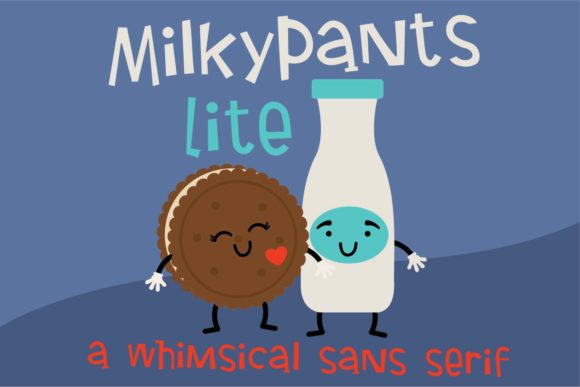
Welcome to the world of Milkypants Font, the most charming and playful sans serif font that will add a touch of enchantment to your creative projects. Designed by the talented team at Illustration Ink, Milkypants is not just a font; it's an experience that transports you to a world of magic and whimsy.
With its effortlessly readable characters and captivating style, Milkypants is the perfect choice for a multitude of DIY projects, from playful invitations to enchanting social media posts, delightful printables to captivating logos, and everything in between. Its enchanting curves and unique letterforms will make your designs stand out, leaving a lasting impression on your audience.
Milkypants Font possesses an inherent versatility that allows it to seamlessly adapt to any project, whether you're crafting personalized greeting cards, creating eye-catching flyers, or designing vibrant blog headers. Its whimsical charm is guaranteed to add a touch of magic to your designs, captivating your audience with its cheerful and enchanting presence.